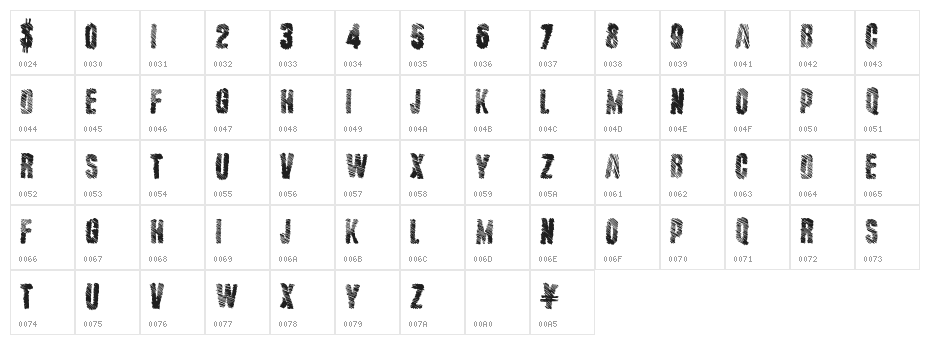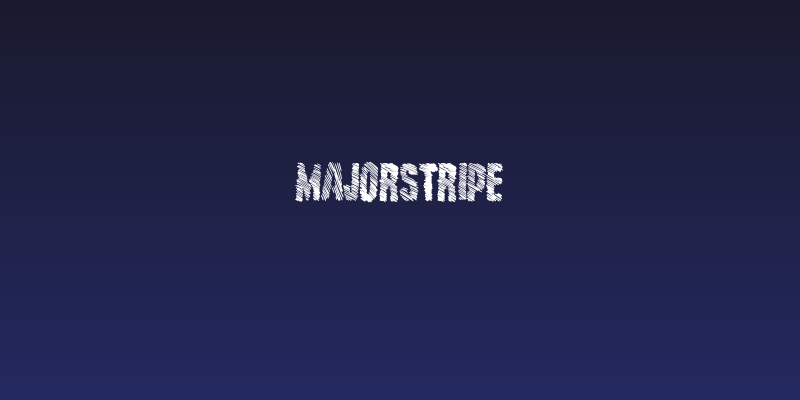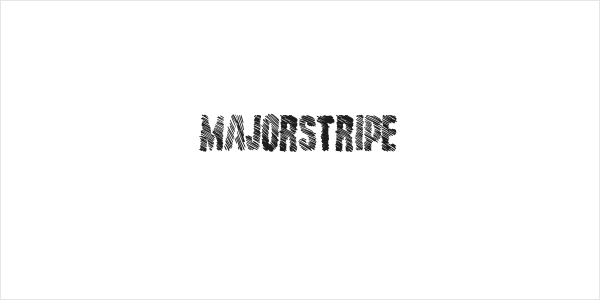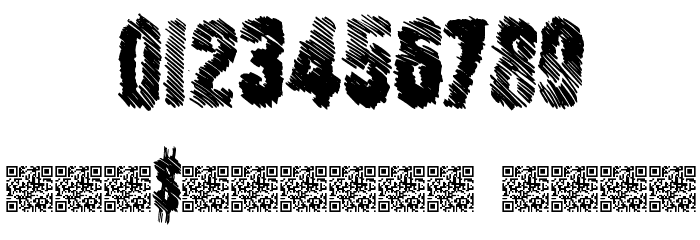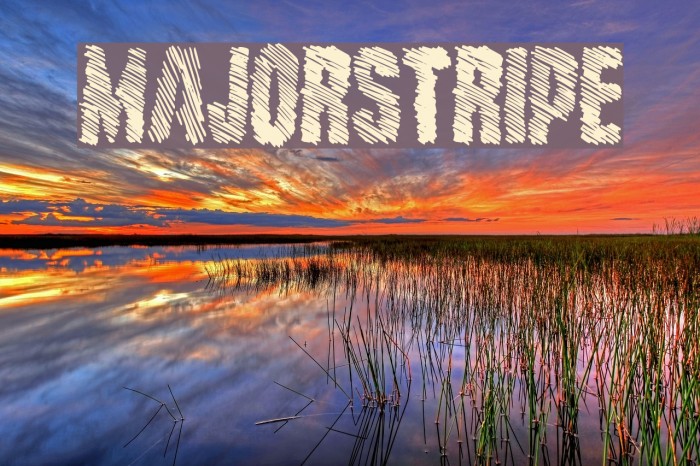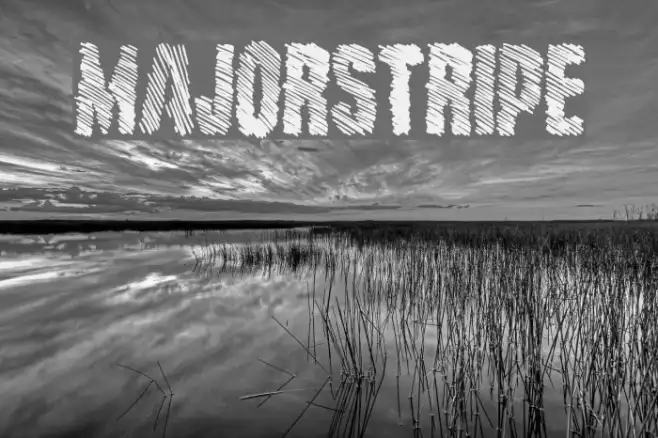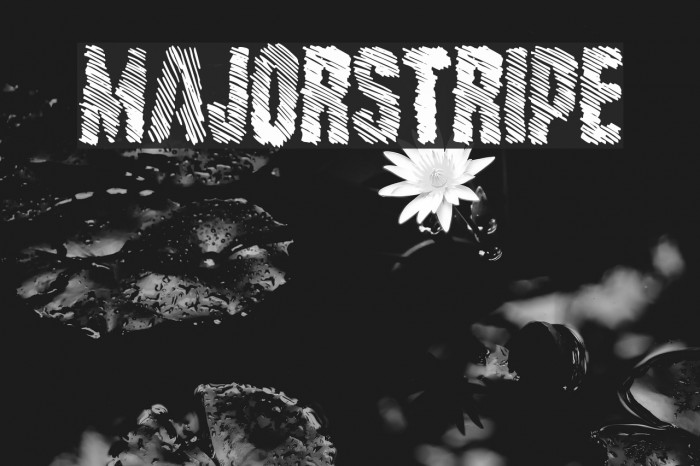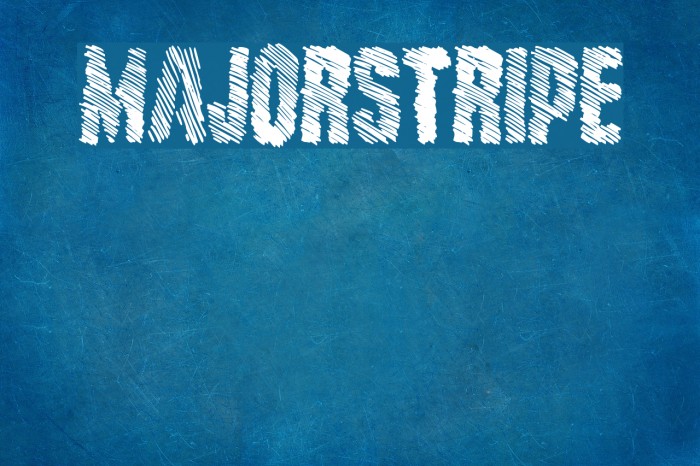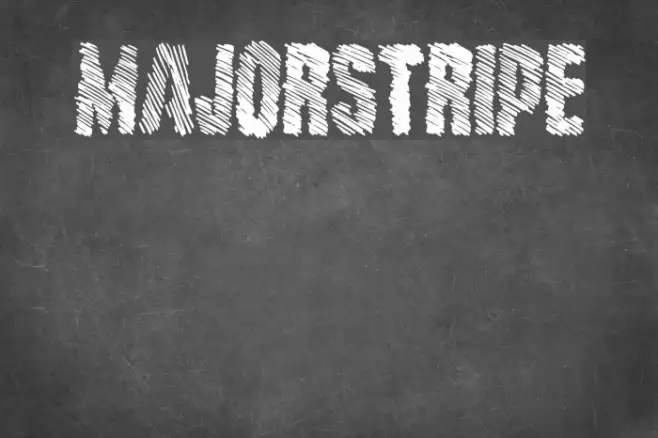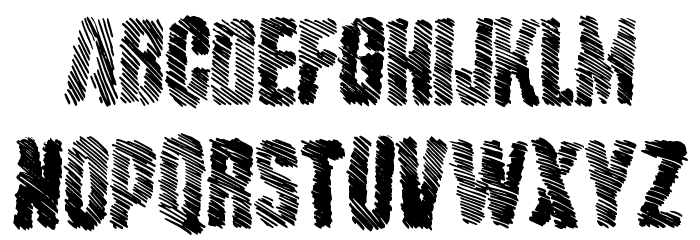
MajorStripe Font
MajorStripe Description
This font features a bold and dynamic design with a distinct striped pattern running diagonally across each character. The uppercase and lowercase letters, as well as numbers, are all crafted with a consistent slanted line motif that gives the font a sense of movement and energy. The bold strokes and high contrast between the black lines and the white spaces create a striking visual impact, making it ideal for attention-grabbing designs. The unique texture and style make it suitable for modern and edgy projects, where a strong visual statement is required.
| Proposed Projects | Ideal for posters, album covers, branding, and any project needing a bold, modern look. |